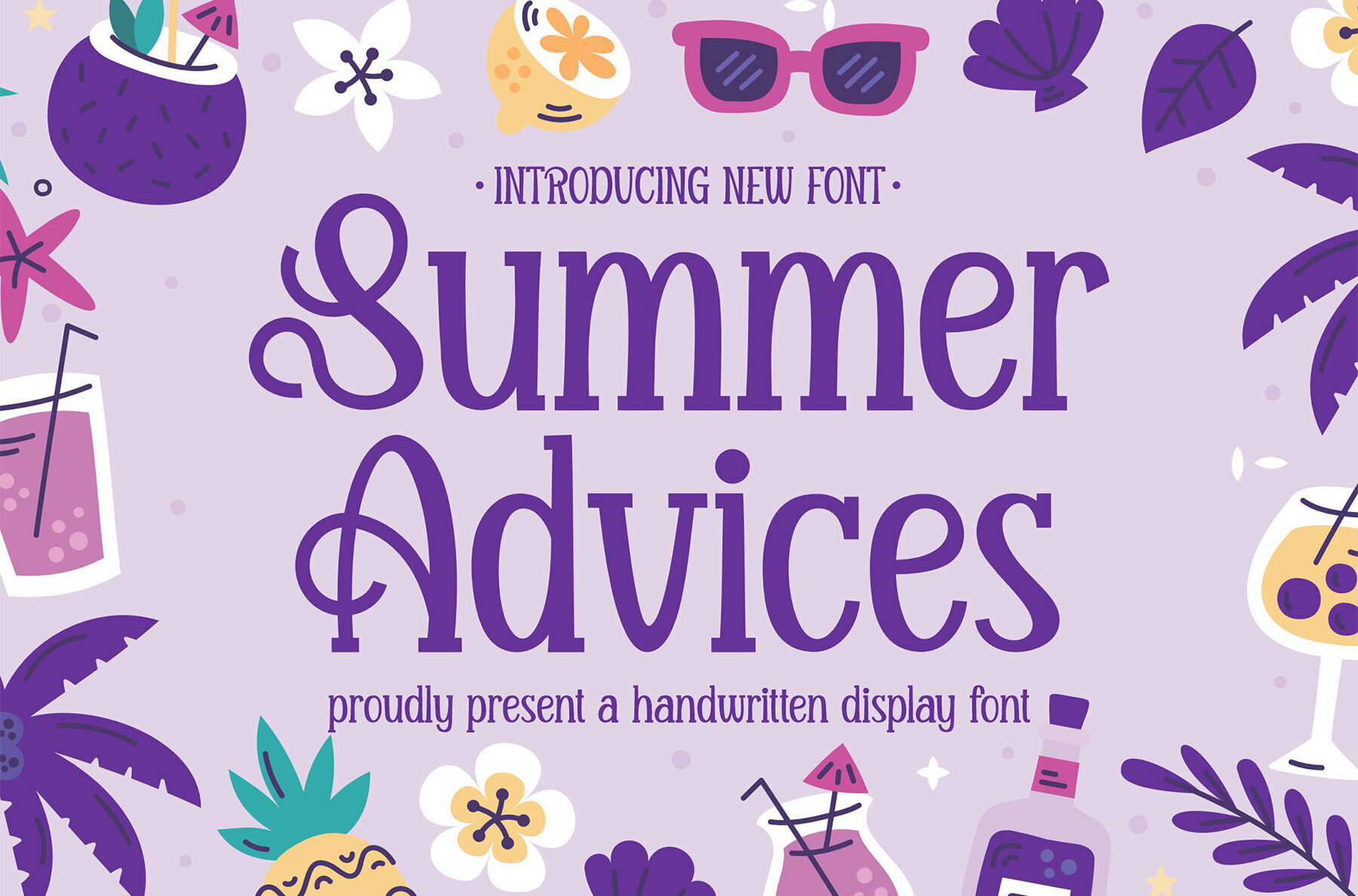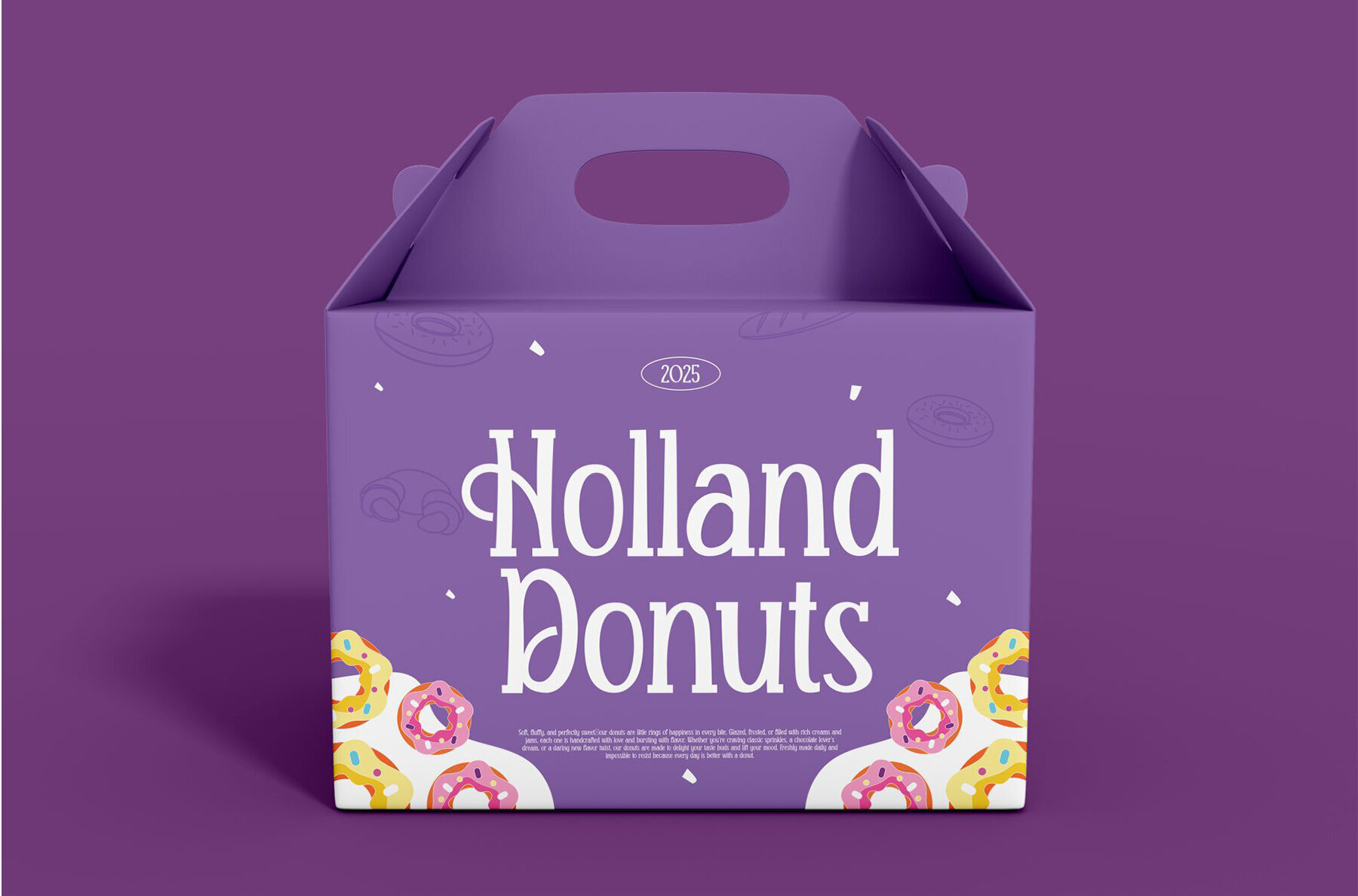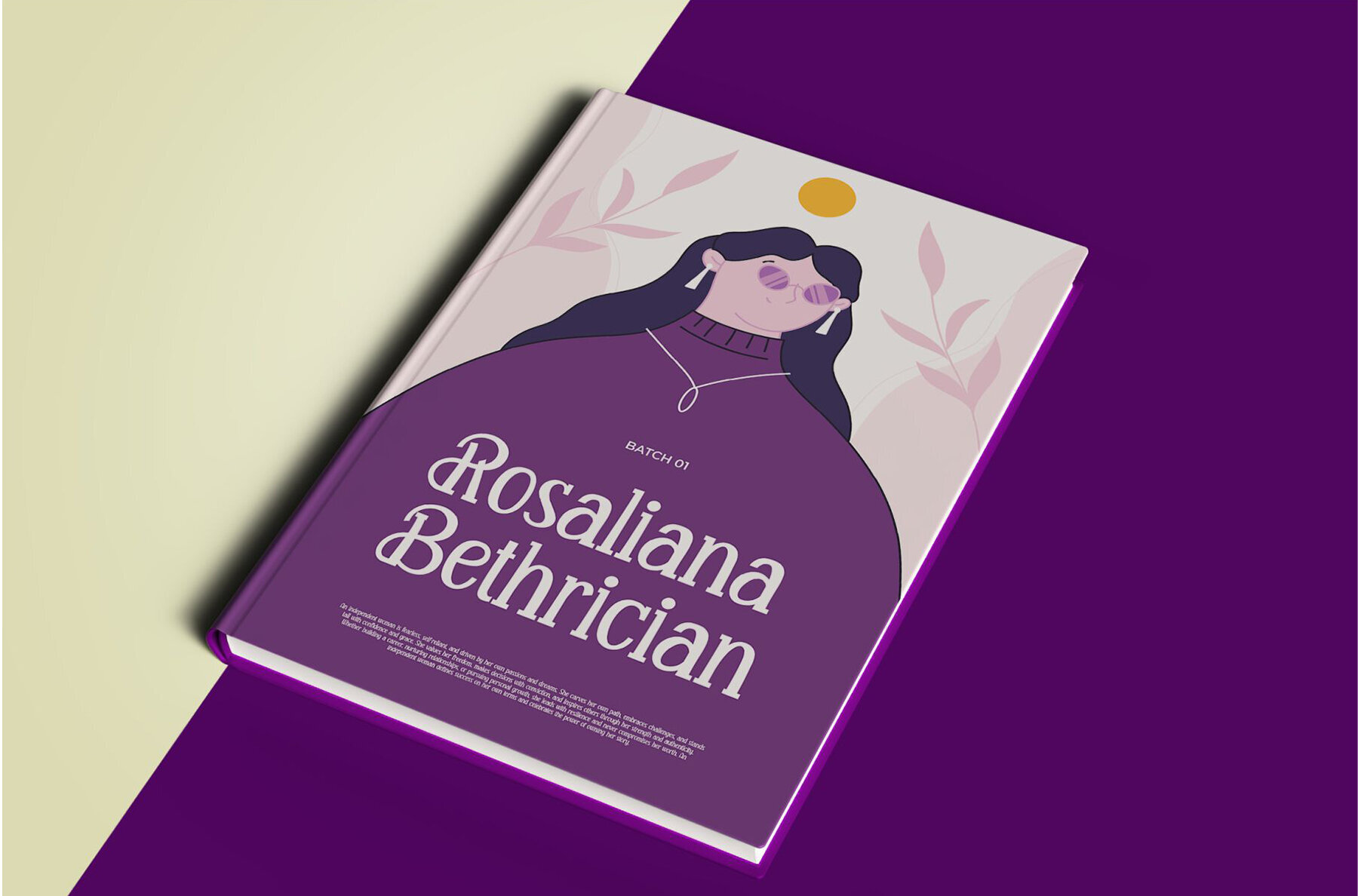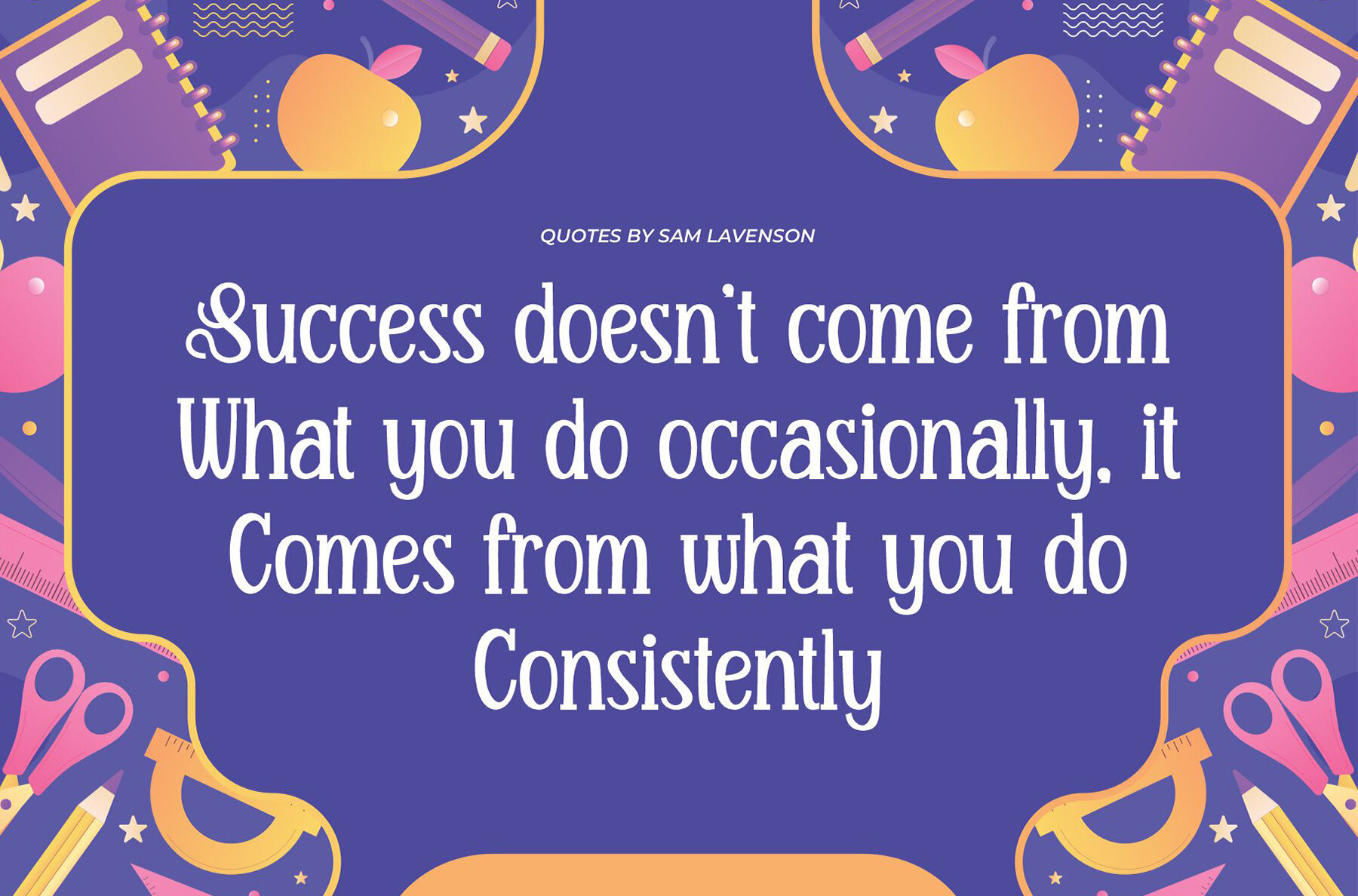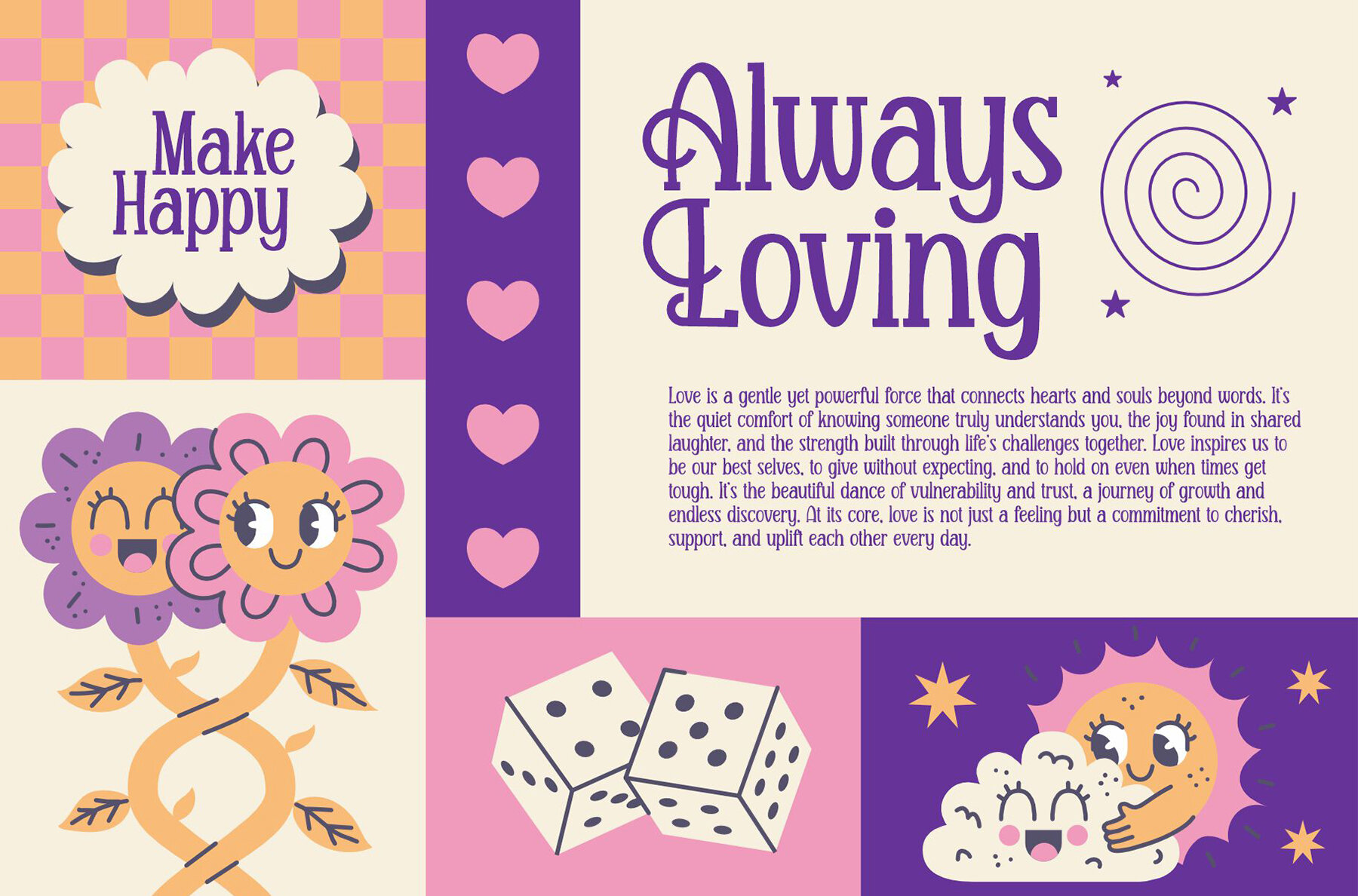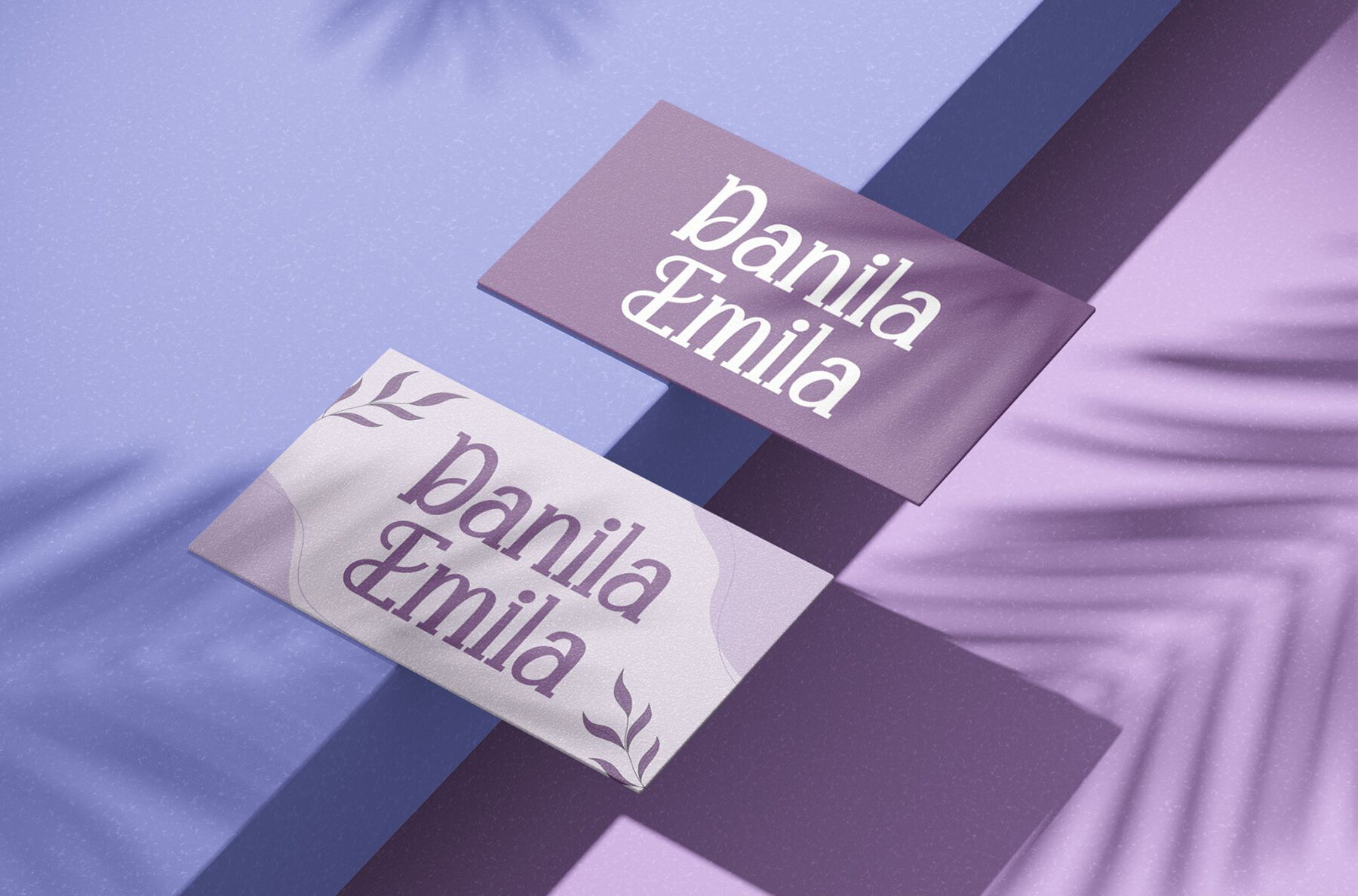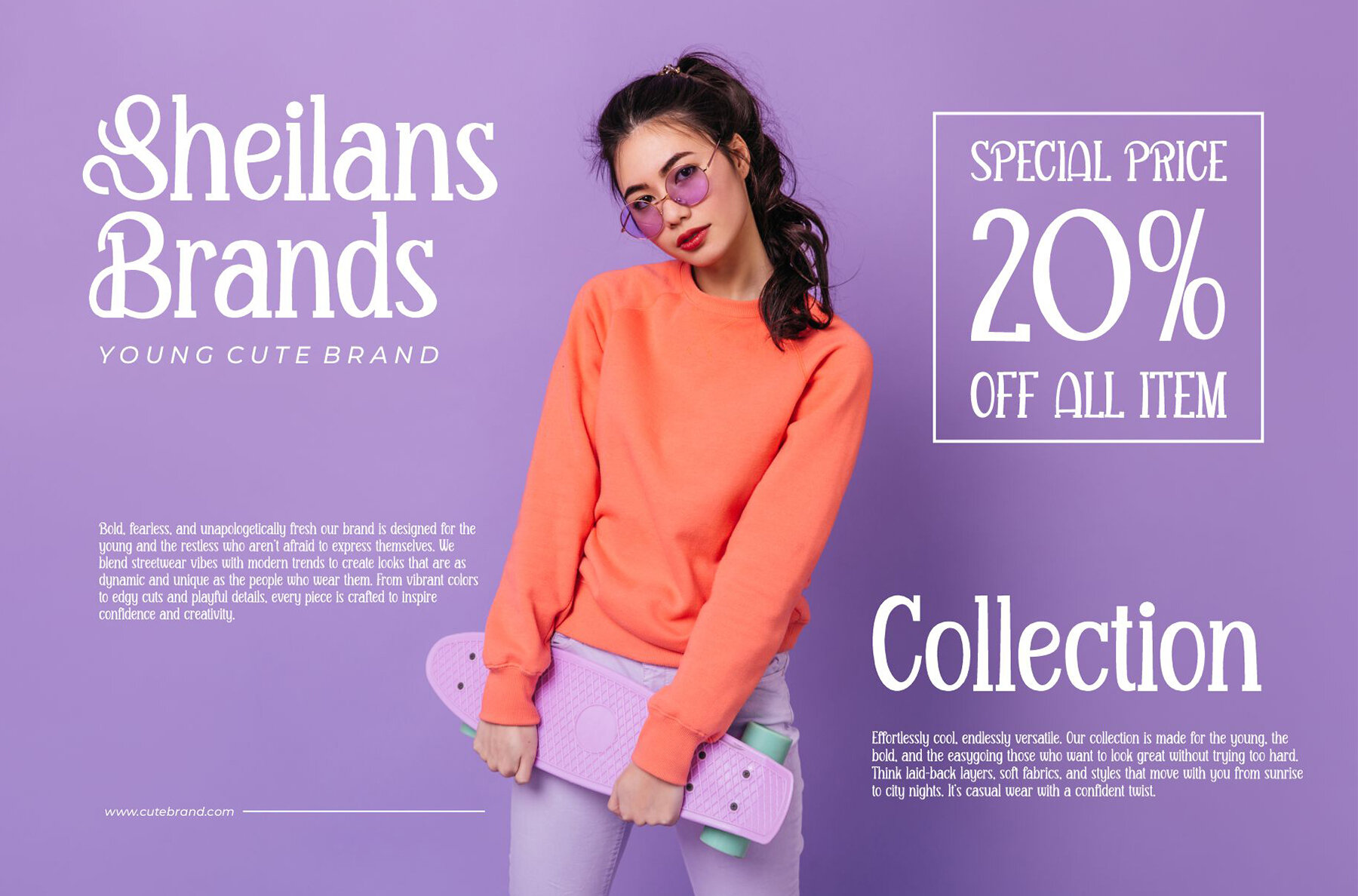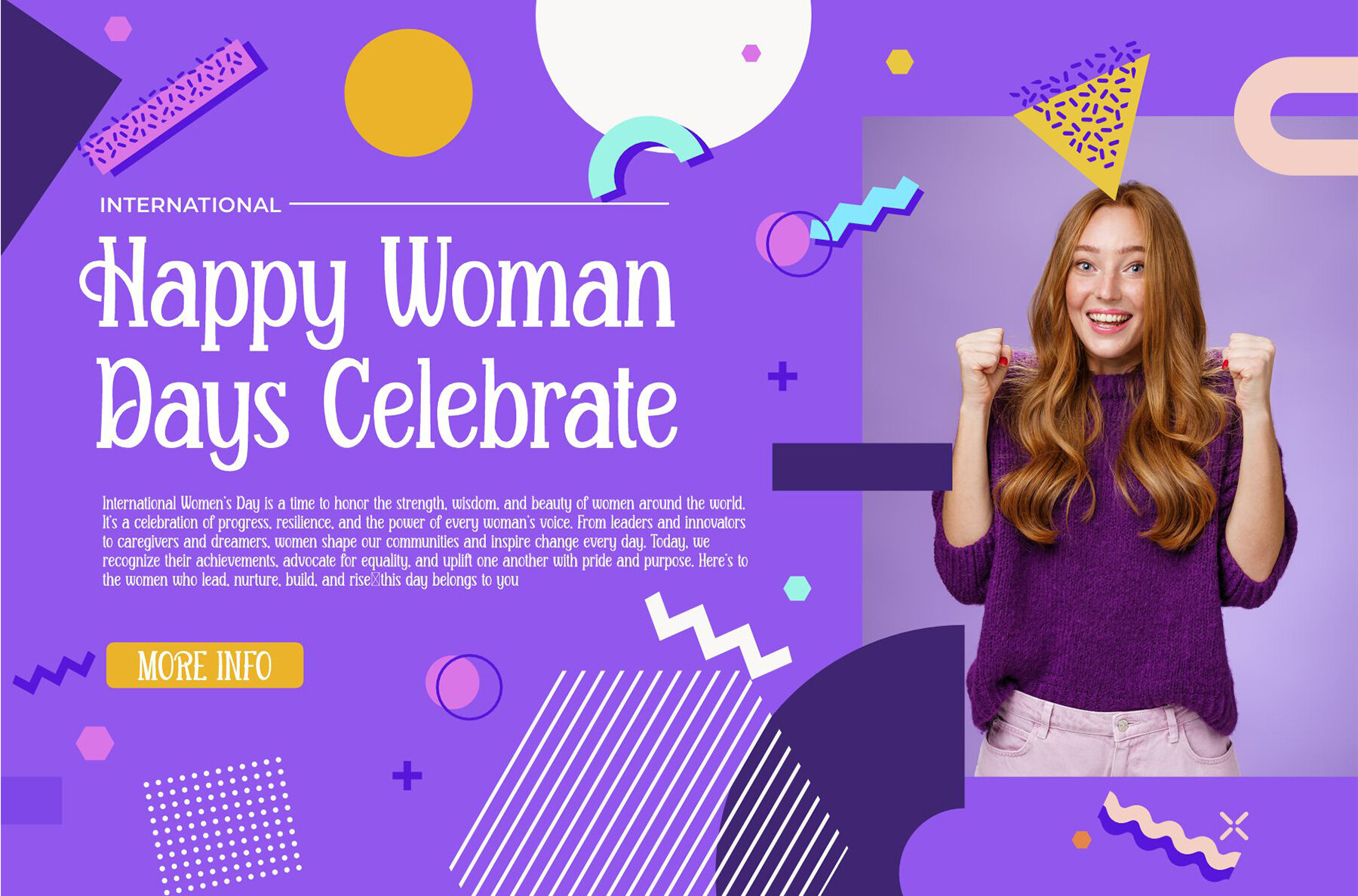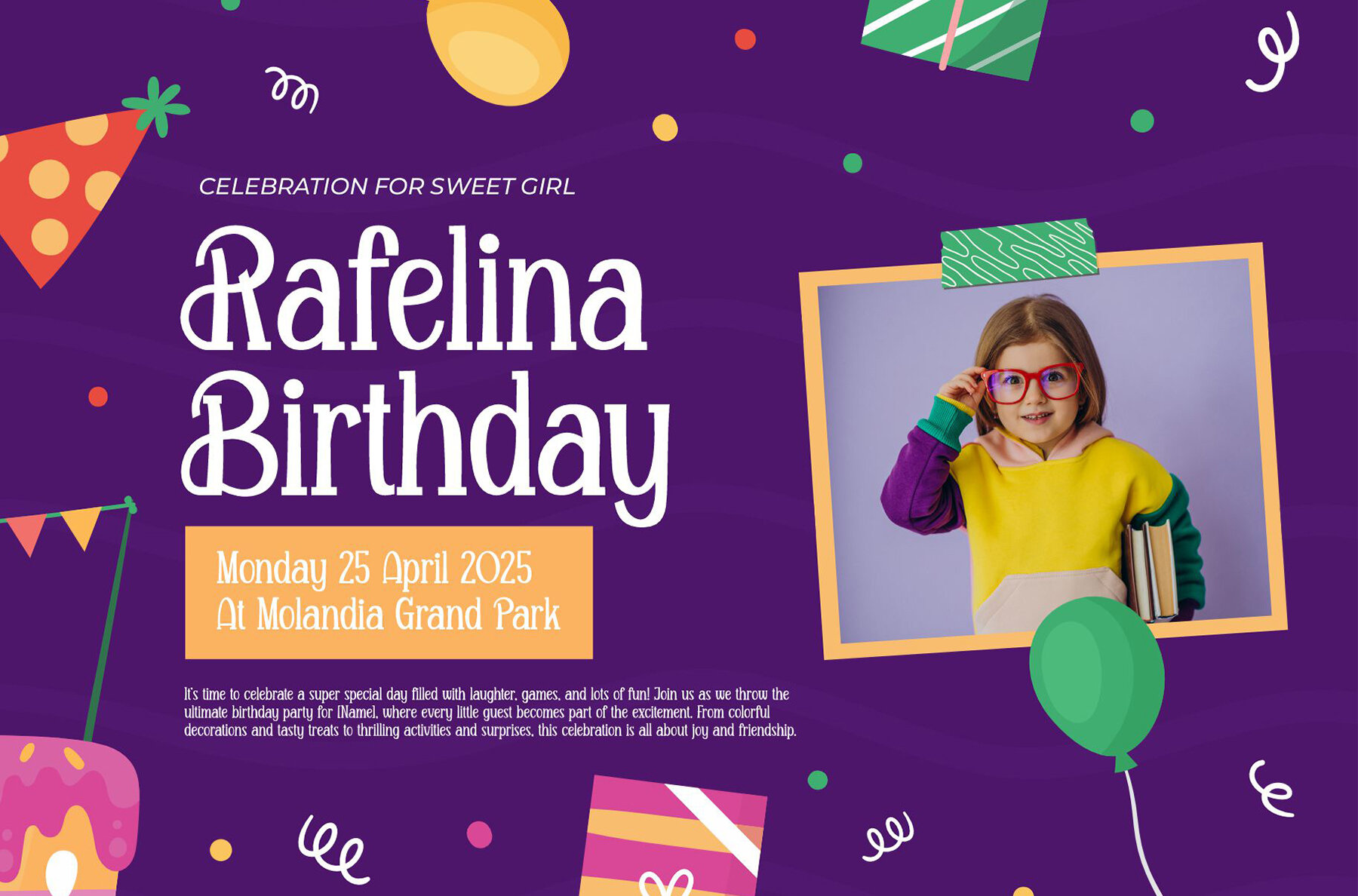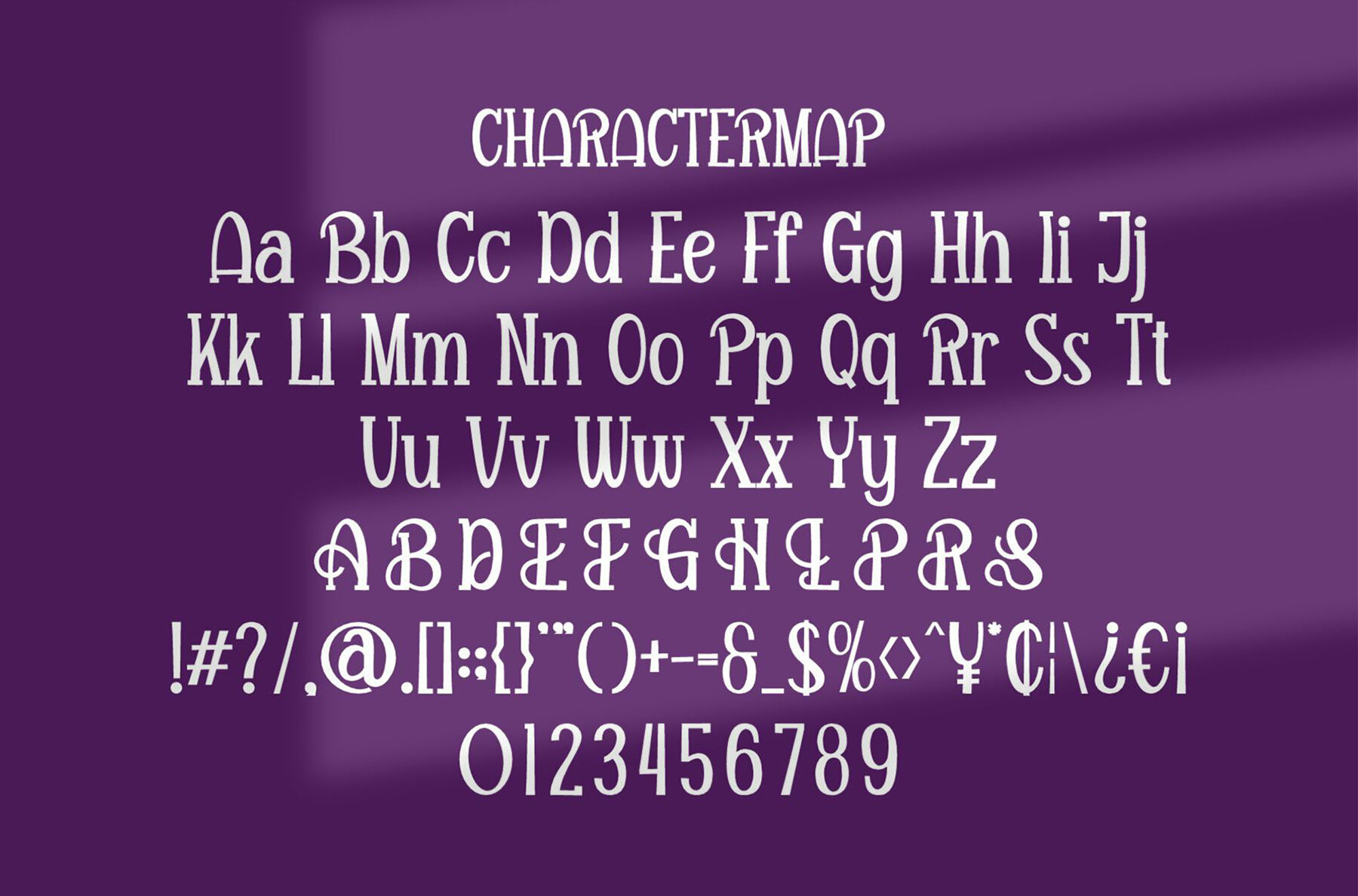
Summer Advices Font
Summer Advices
Step into the vibrant world of Radiant Holiday— a display font that radiates summer vibes with modern and trendy flair. Featuring a unique bouncy style combined with a whimsical wood theme, this font weaves playfulness into any design project. The Radiant Holiday font seamlessly supports Adobe Illustrator, Photoshop, InDesign, and Microsoft Word. Its simple installation makes it accessible for both PC and Mac users, ensuring hassle-free creativity across platforms. Bring your designs to life with this eye-catching and lively font!Embrace Sunny Creativity with Radiant Holiday Font